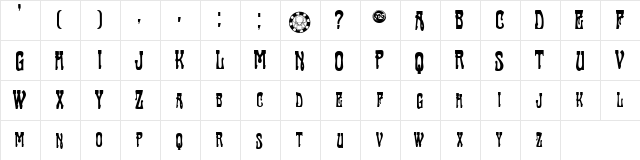
Sluagh Creepy
| Style | Creepy |
Design Context for Sluagh Typeface
Sluagh leans into the macabre with letterforms designed to disturb and intrigue in equal measure.
Ideal for Halloween projects, horror film titles, haunted house signage, and dark editorial design.
Font Pairing: Pair with a clean neutral sans-serif for body copy to let Sluagh's character lead without overwhelming the composition.
Pro Tip: Sluagh works best as a headline or focal element. Pair it against plain, neutral body text to amplify the contrast.